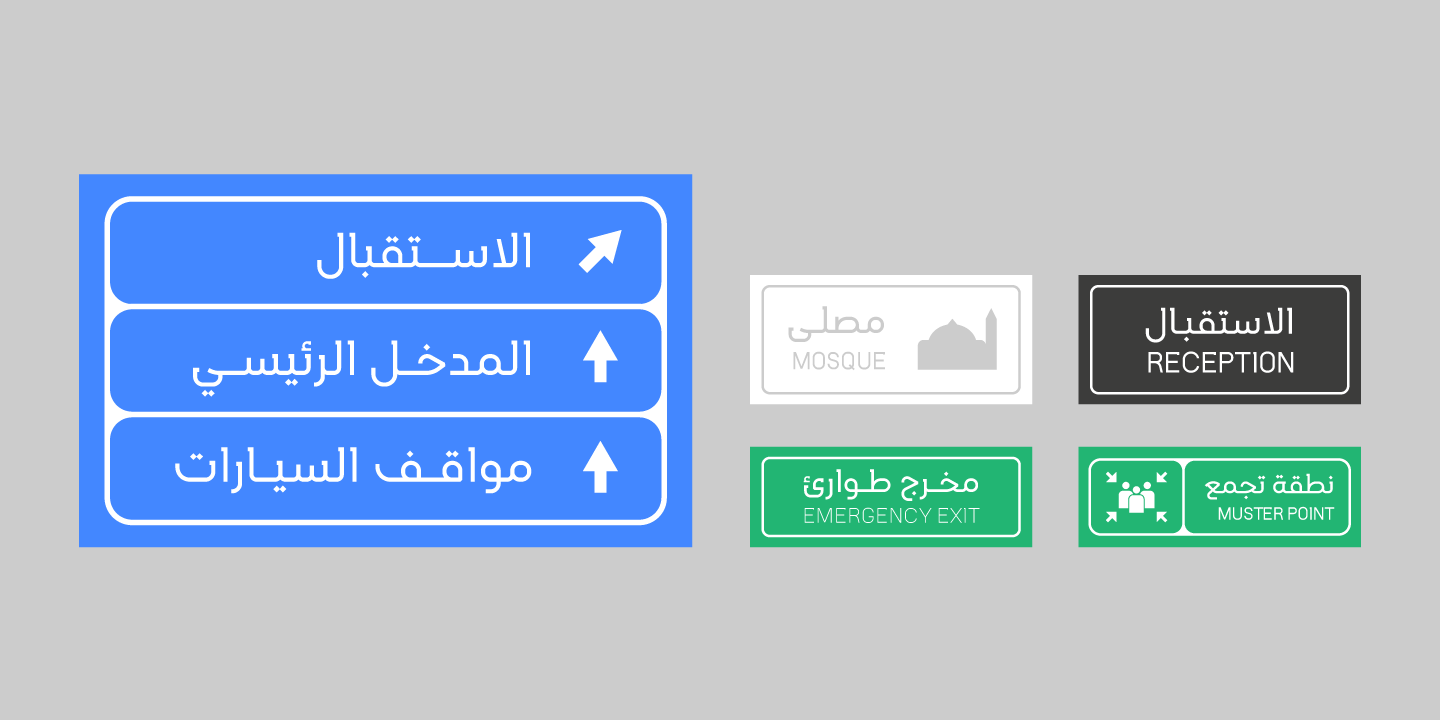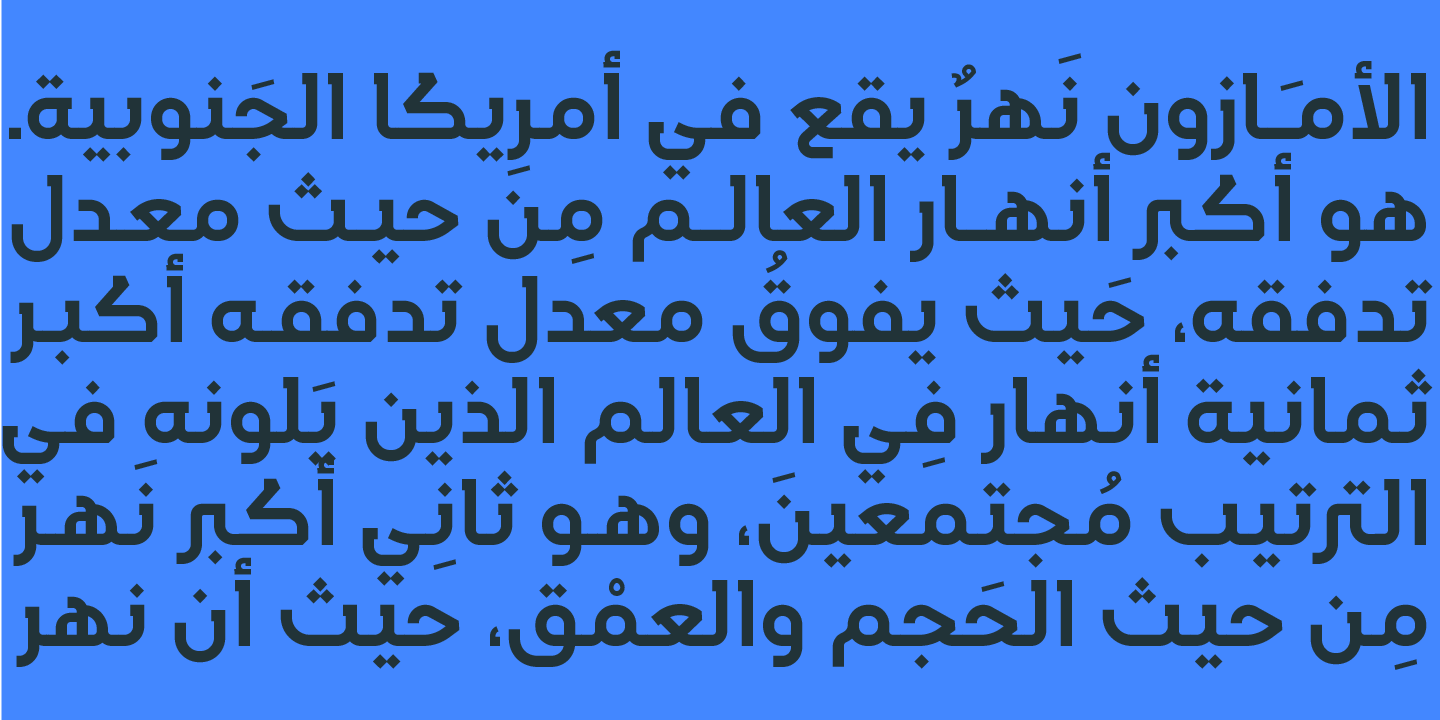
This Arabic typeface family was created by Younes Alaboudi. Yanson proudly incorporates a timeless geometric style with humanistic nuances. Featuring three weights from Light to Bold, Yanson supports OpenType features for Arabic.